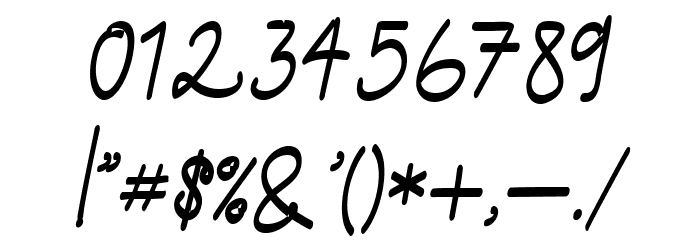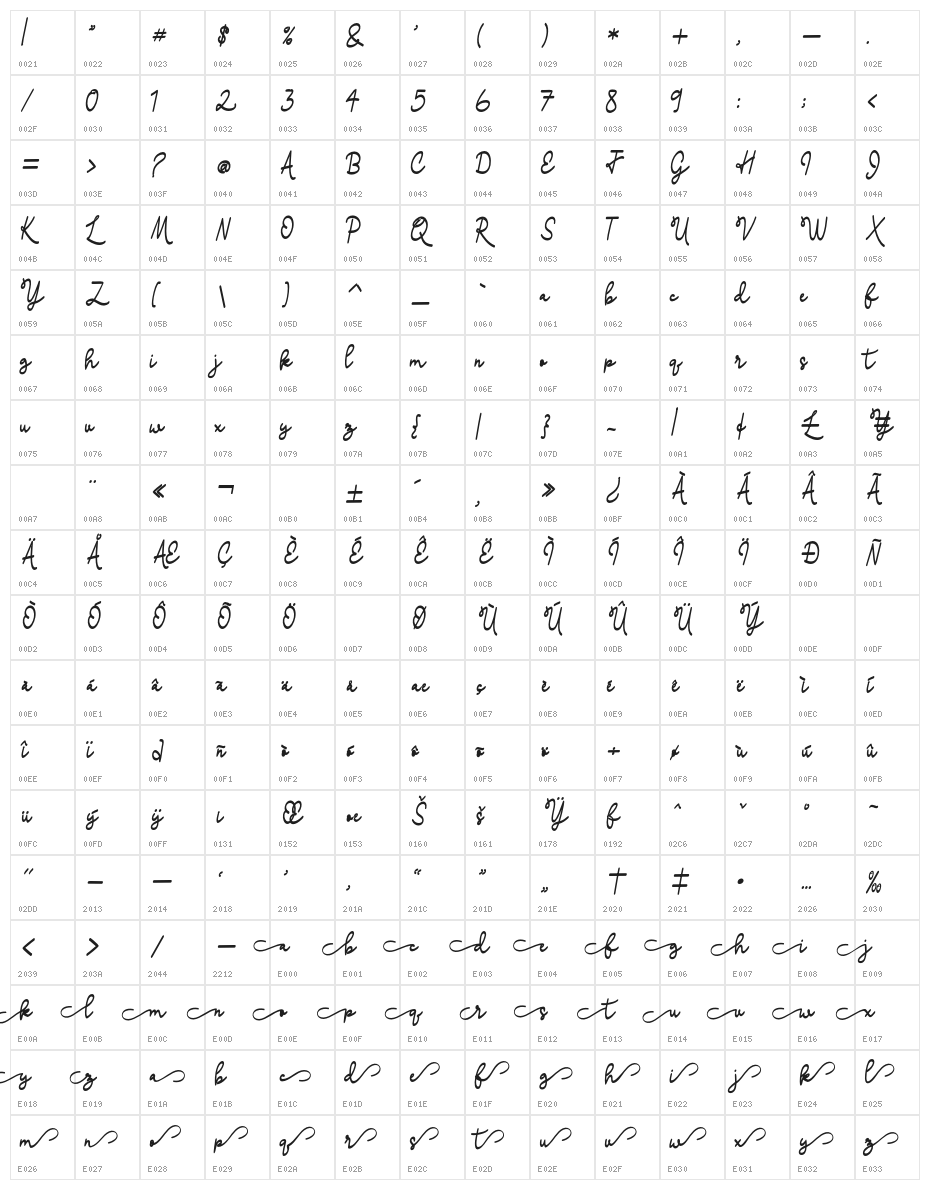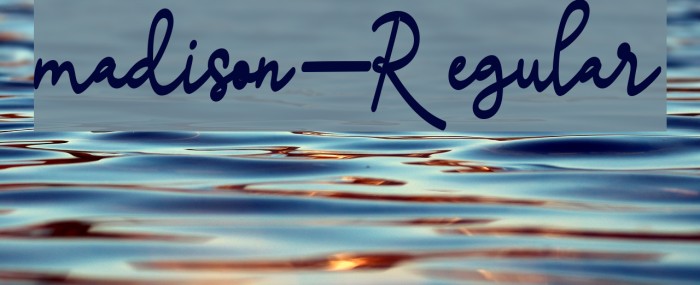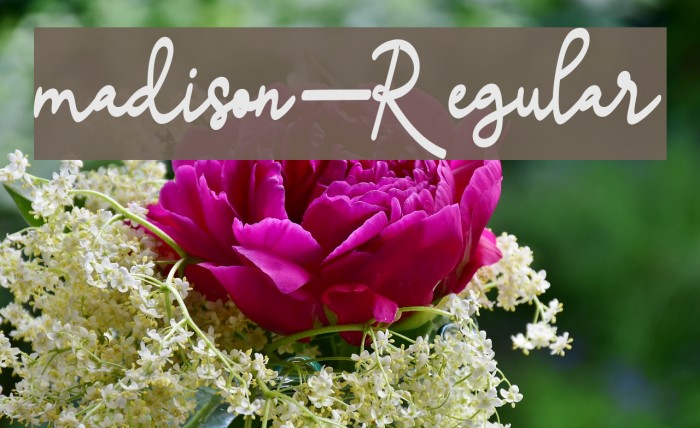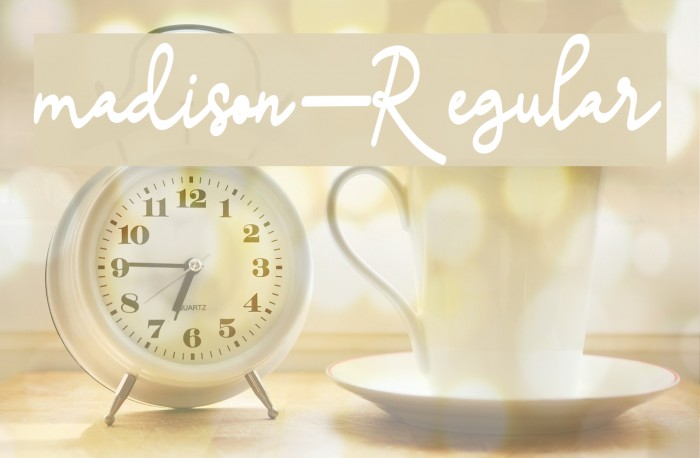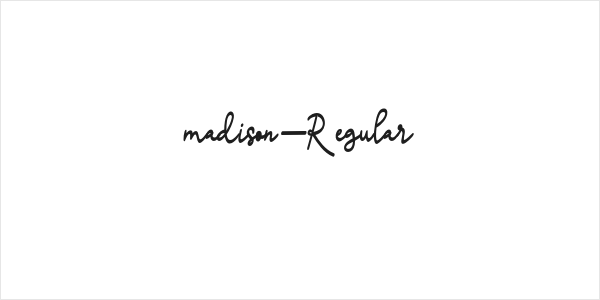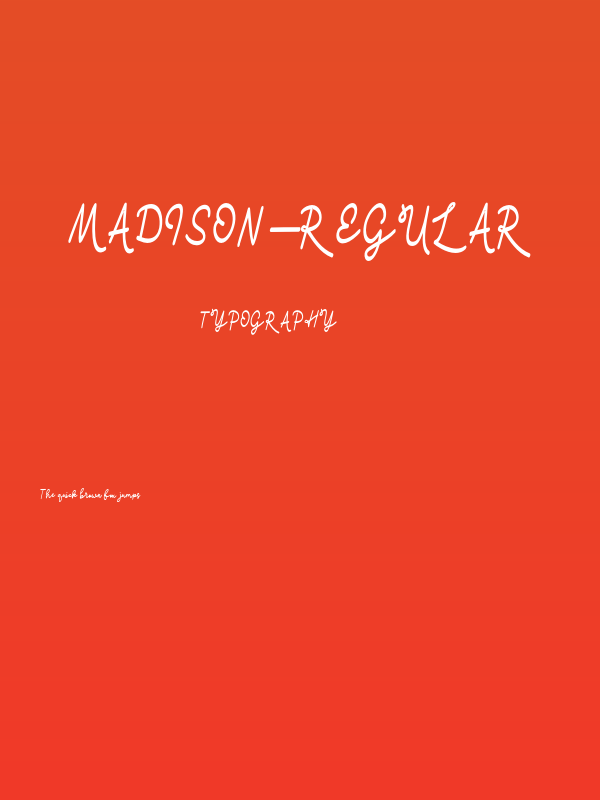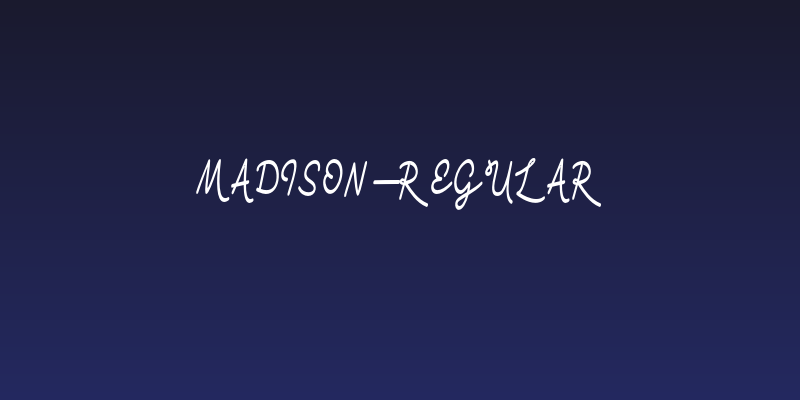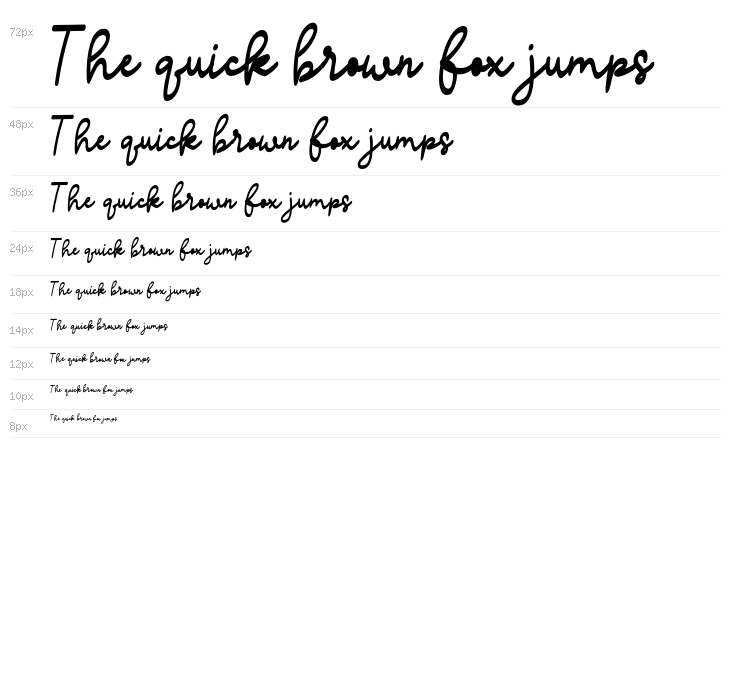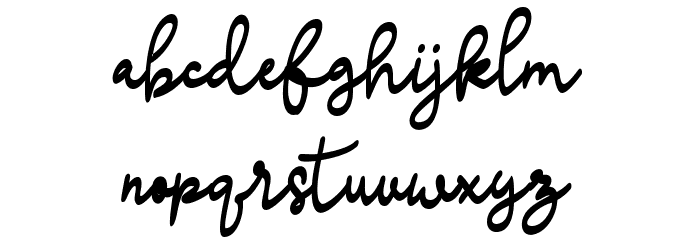
madison-Regular Font
madison-Regular Description
This font features a flowing, cursive style that mimics elegant handwriting. The uppercase letters are tall and slightly slanted, with smooth curves and loops that give a sense of fluidity and grace. The lowercase letters maintain a consistent style, with rounded forms and connected strokes that enhance the script-like appearance. Numbers and special characters are designed to match the overall aesthetic, ensuring a cohesive look across all text elements. The font's playful yet sophisticated style makes it suitable for a variety of creative projects.
| Proposed Projects | Ideal for wedding invitations, greeting cards, branding, and social media graphics. |